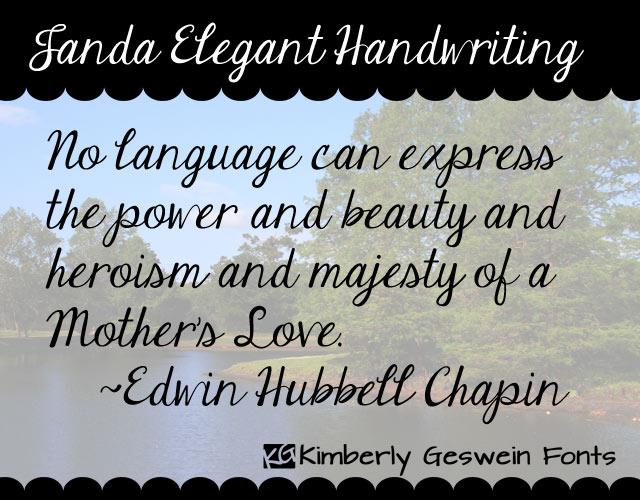
Free Janda Elegant Handwriting Font
Free janda elegant handwriting font for any designer that is looking to display their design professionally. Go give some love to Font Space for creating this top-notch free font. Amaze your fellow designers and create stunning designs with this cool font.